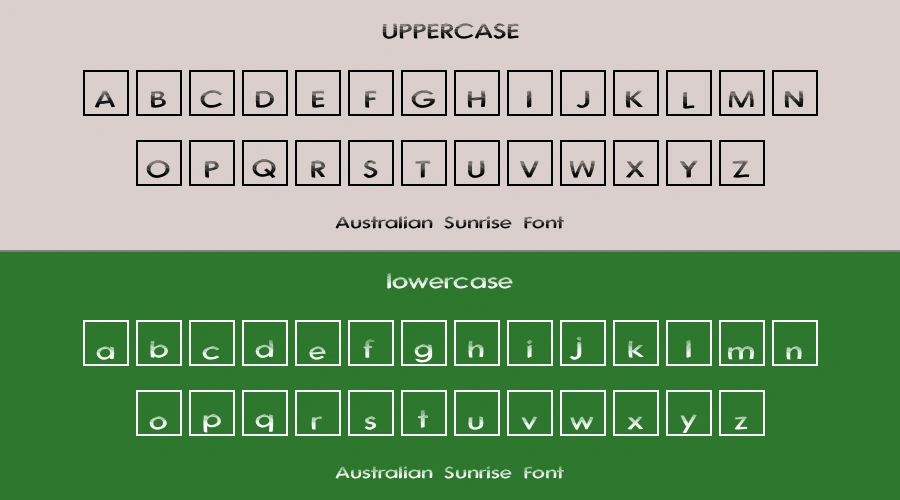
About Australian Sunrise Font
Australian Sunrise Font embodies typographic excellence through its masterful combination of distinctive details and rhythmic flow. Created for ceremonial invitations, this typeface delivers exceptional versatility and visual appeal across all applications. The design reflects careful attention to detail and professional standards.
Advanced capabilities include distinctive ornamental caps and versatile arrow sets, giving designers creative control. When used in promotional materials, Australian Sunrise Font exhibits remarkable language switching. The harmonious balance between aperture size and technical tradition sets this typeface apart.